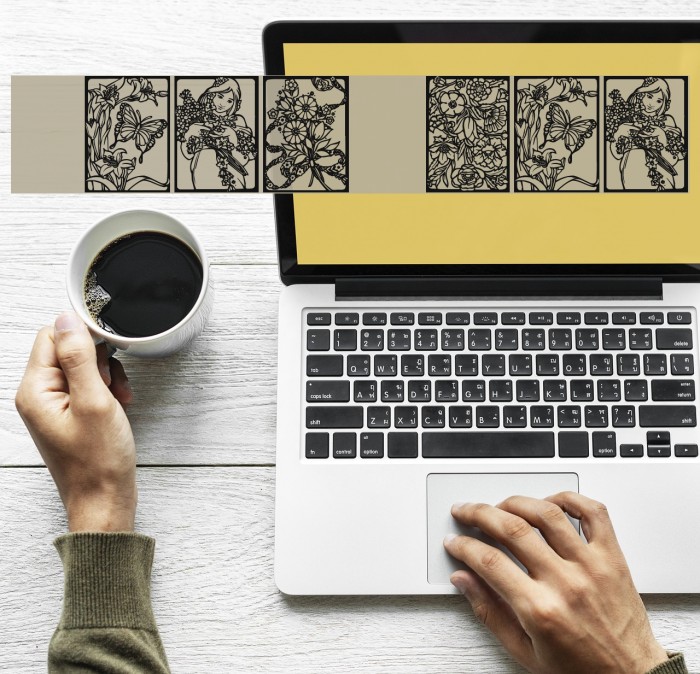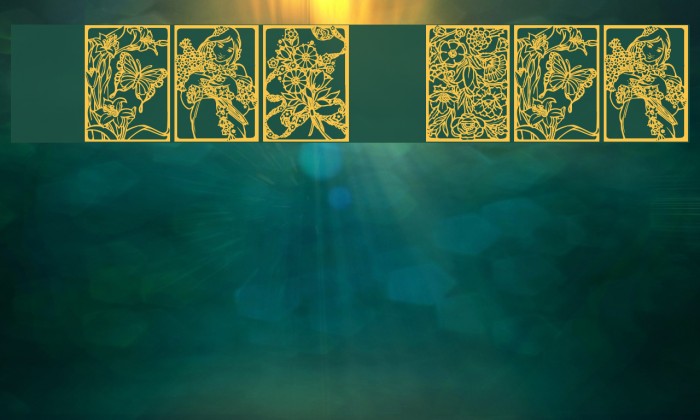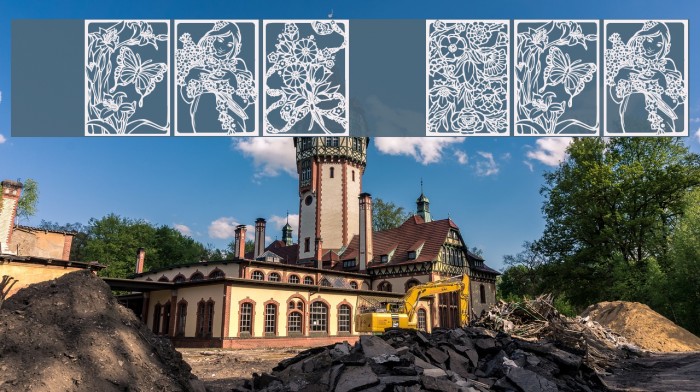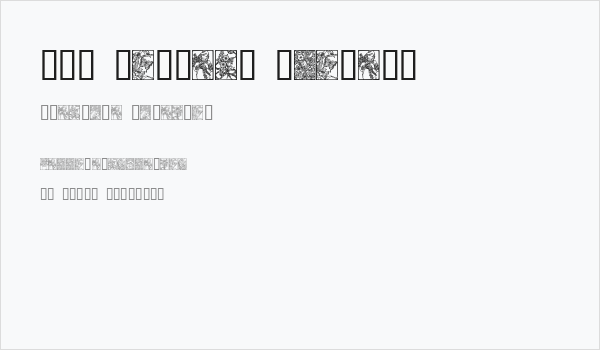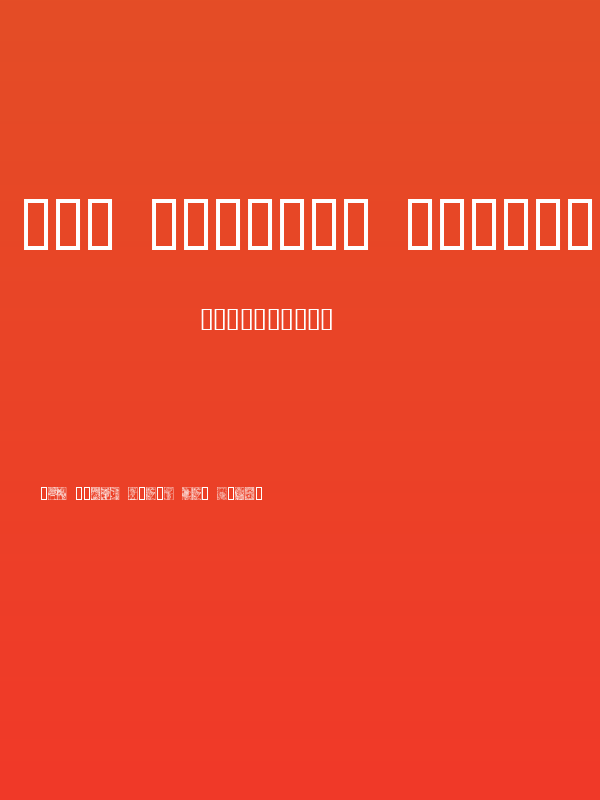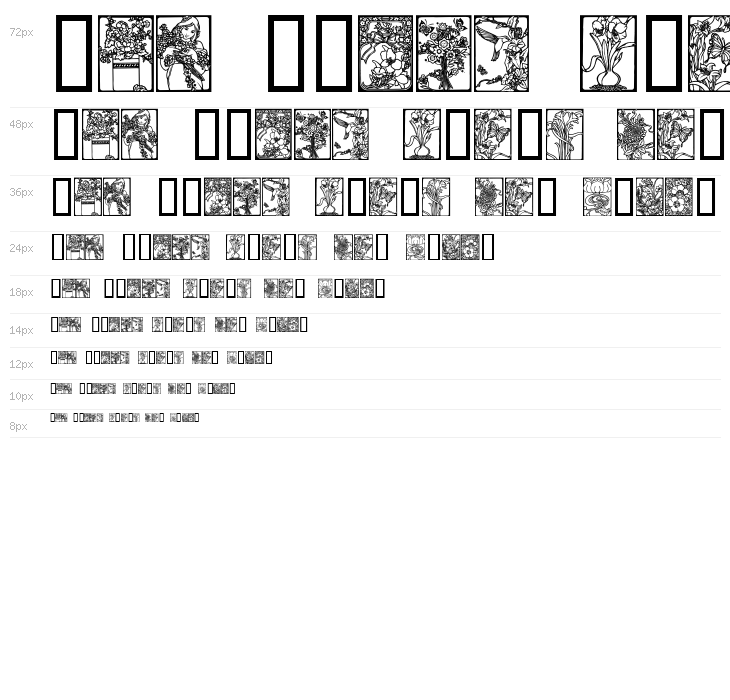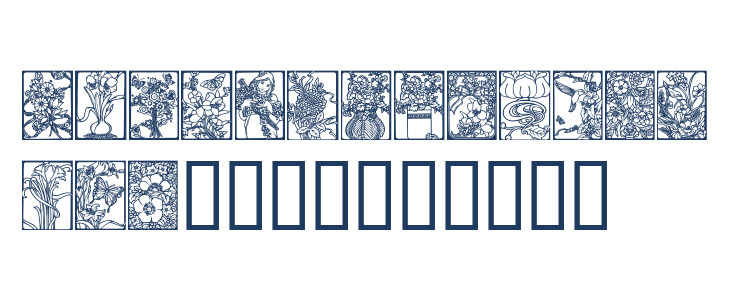
Art Nouveau Flowers Font
Art Nouveau Flowers Description
This decorative typeface is inspired by the Art Nouveau movement, featuring intricate floral designs within each character. The letters are adorned with detailed botanical illustrations, showcasing a variety of flowers and natural elements. Each character is a unique piece of art, combining the elegance of floral motifs with the functionality of typography. The style is highly ornamental, making it suitable for artistic and decorative purposes. The font captures the essence of Art Nouveau with its flowing lines and organic forms, creating a sense of movement and vitality.
| Proposed Projects | Ideal for wedding invitations, greeting cards, art projects, and decorative posters where a touch of elegance and nature is desired. |